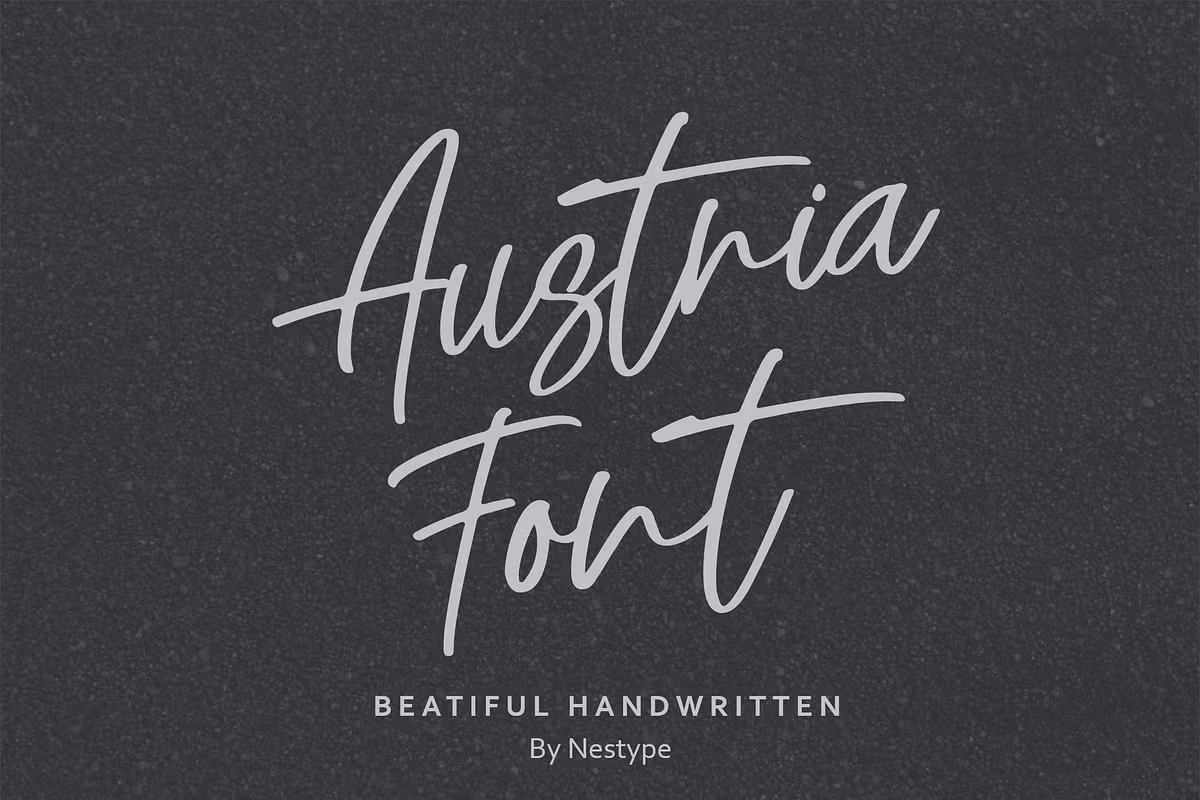
Austria Font | Beautiful Handwritten Free Download
Austria Font | Beautiful Handwritten Font Free Download
Please note, to use this font for commercial purposes, you must purchase the full version. Austria Font is a beautiful handwritten typeface that exudes elegance and charm with its flowing, organic strokes. Perfect for a variety of creative projects, including invitations, branding, logos, and greeting cards, this font adds a personal and artistic touch to any design. Whether you're creating a wedding invitation or a stylish logo, Austria Font brings a unique, handcrafted feel that makes your work stand out. Test it out and enjoy free download access for personal use. Try Austria Font | Beautiful Handwritten Font Free Download and see how it can enhance your designs before deciding to purchase the commercial license. Add a touch of beauty and authenticity with Austria Font.